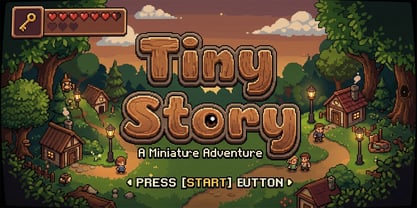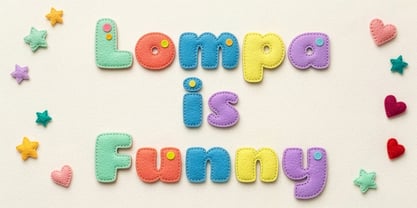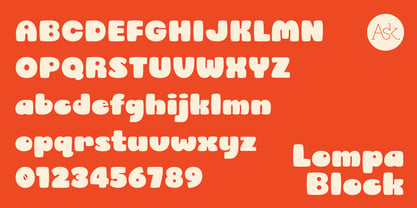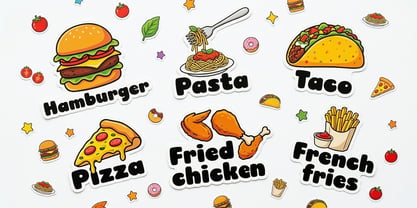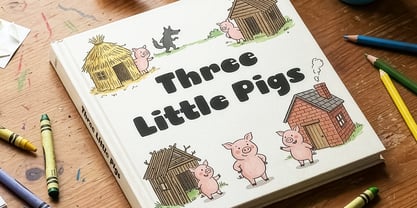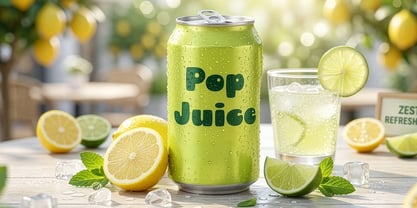
Lompa
by Ask Foundry
The Lompa Font Family was designed by Seung Hyub Lee and published by Ask Foundry. Lompa contains 1 styles. More about this family
About the Typeface Lompa is a chunky display typeface crafted from bold, rounded blocks. Its thick strokes and soft corners create a friendly yet powerful visual presence. Each letter is designed to be simple, sturdy, and highly legible, making the typeface ideal for bold headlines and playful branding. While the forms are heavy and graphic, the rounded edges give Lompa a warm and approachable personality. The result is a typeface that feels both strong and cheerful—perfect for designs that need to stand out while maintaining a friendly vibe. What Makes Lompa Special • Chunky block structure with strong visual impact • Rounded corners that soften the heavy forms • Clear and simple letter construction • Highly recognizable shapes at large sizes • Friendly tone with a bold personality Lompa doesn’t whisper—it speaks with confident, playful weight. Design Use Cases Lompa works especially well in: • Logos and bold wordmarks • Packaging and product titles • Posters and large headlines • Children’s brands and playful identities • Stickers, merchandise, and social graphics Its thick forms make it particularly effective for short phrases and bold statements. Style & Technical Details Style: Rounded Block Display Character Set: • Uppercase & Lowercase Latin • Numerals • Basic punctuation Features: • Uniform heavy strokes • Rounded terminals • Large counter spaces for clarity Lompa performs best at medium to large display sizes, where its chunky character and playful rhythm can fully shine. Design Concept Lompa was designed around the idea of friendly blocks—letters that feel solid and bold, yet soft and welcoming. By combining thick geometric structures with rounded edges, the typeface creates a balance between strength and playfulness. The goal was to design a font that immediately catches attention while remaining warm and approachable.
Designers: Seung Hyub Lee
Foundry: Ask Foundry